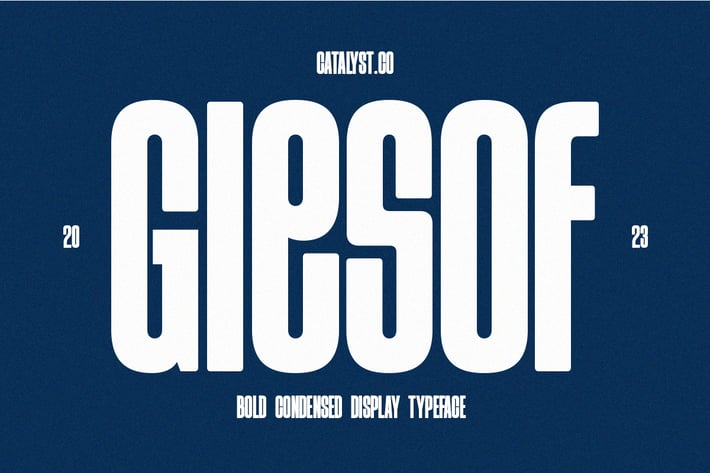
Giesof Bold Condensed Display Font
GIESOF is a bold condensed display typeface built for maximum visual impact. Its tall, rounded forms and tight vertical structure create a strong and confident presence that stands out instantly in any layout. Designed for headlines and expressive titles, the font delivers a clean yet powerful rhythm with a distinctly modern character.
Ideal for sports graphics, event posters, branding projects, editorial design, and dynamic advertising. With complete uppercase, alternates, numerals, and punctuation, GIESOF offers designers a premium and professional option for crafting energetic and high-impact visual statements.
Suitable for sports branding, racing posters, event promotions, bold headlines, editorial layouts, logo design, merchandise typography, large-format prints, advertising graphics, and any creative project requiring a strong and condensed display typeface.